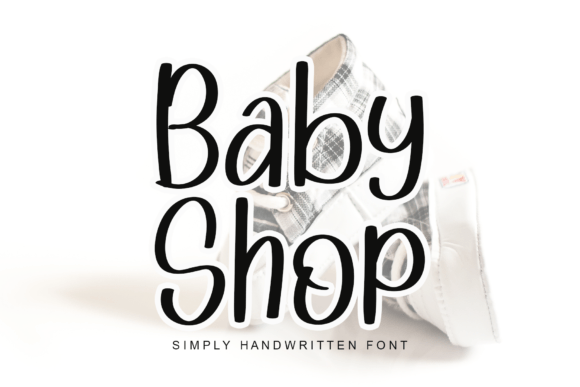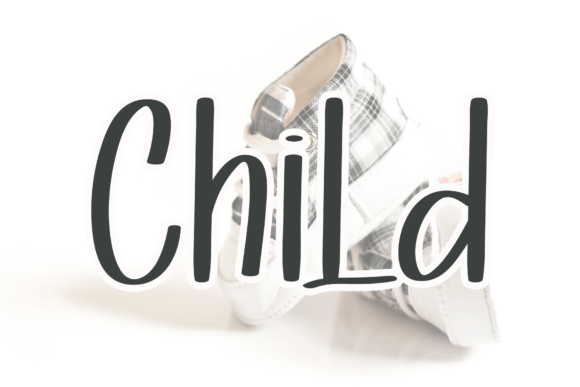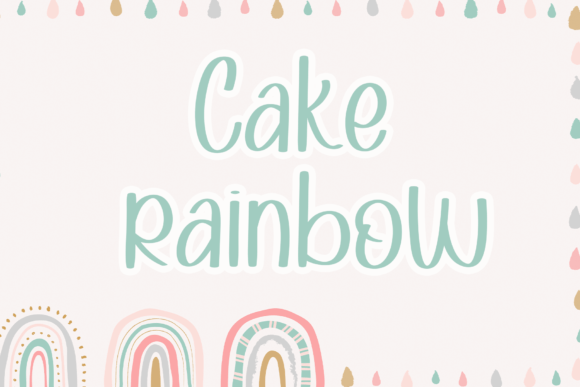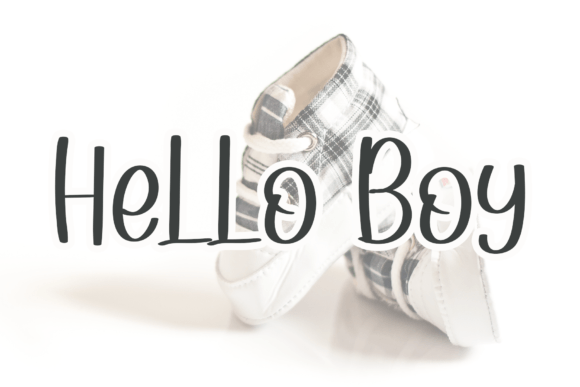
Baby Shop Font
About the Baby Shop Font
Unleash your creativity with Baby Shop Font, a versatile font perfect for a wide range of applications. Baby Shop Font is a delightful and charming typeface that captures the innocence and sweetness of infancy. With its gentle curves and playful letterforms, this font is perfect for baby-related designs, nursery decor, baby shower invitations, and children’s books. Baby Shop Font adds a touch of warmth and adorability to any project centered around little ones.
Its friendly, rounded forms make it ideal for logos, short headlines, and packaging related to children’s products or brands emphasizing gentleness and care. Avoid using it for large blocks of text or body copy; the playful nature may hinder readability. It’s also not suitable for UI elements requiring high legibility.
Pairing Baby Shop Font with a clean sans-serif like Open Sans for body text creates a balanced and professional look. For a more playful feel, consider pairing it with a handwritten script font, but ensure sufficient contrast for readability. A geometric sans-serif could also work well for a modern, slightly sophisticated take.
The overall personality is undeniably cheerful and approachable, making it perfect for projects focused on joy and innocence.
Baby Shop Font Example